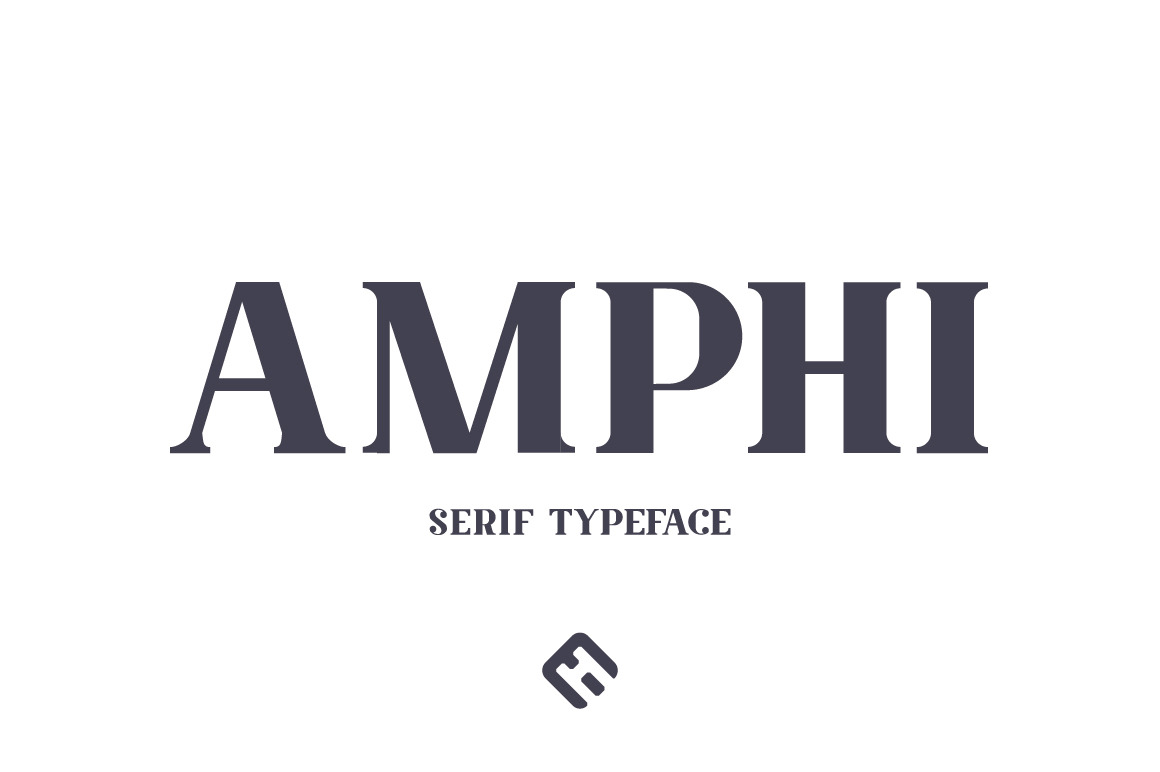
Amphi Typeface
Amphi is a bold & sturdy serif typeface taken influence from ancient roman style architecture. Comes with regular, stencil and broken.